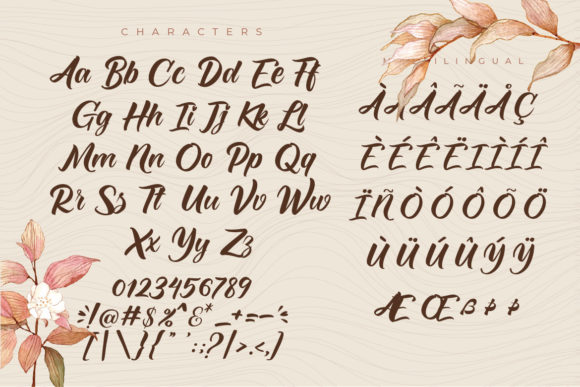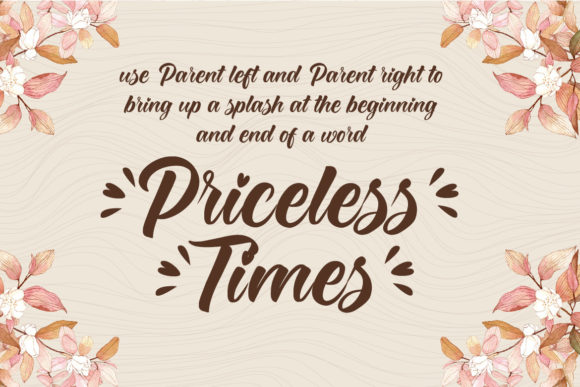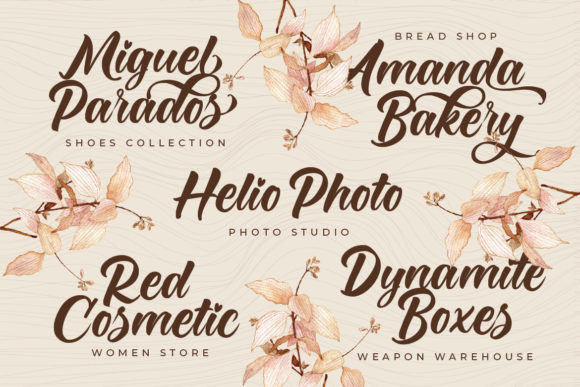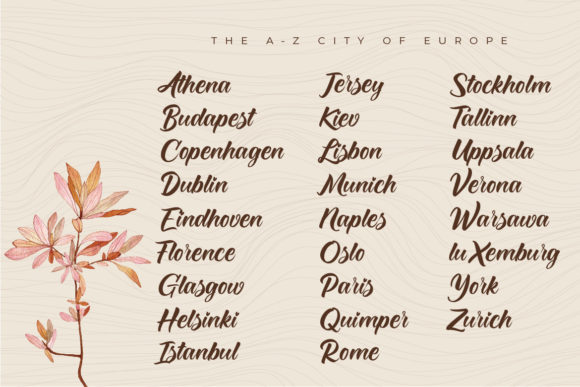
Introduction to Monicha Script Font
Monicha Script is a chic, refined script font that emanates sophistication and elegance.
Its stylish alternates and ligatures make this font the perfect match for any project .
Key Features of Monicha Script Font
Why Choose Monicha Script Font?